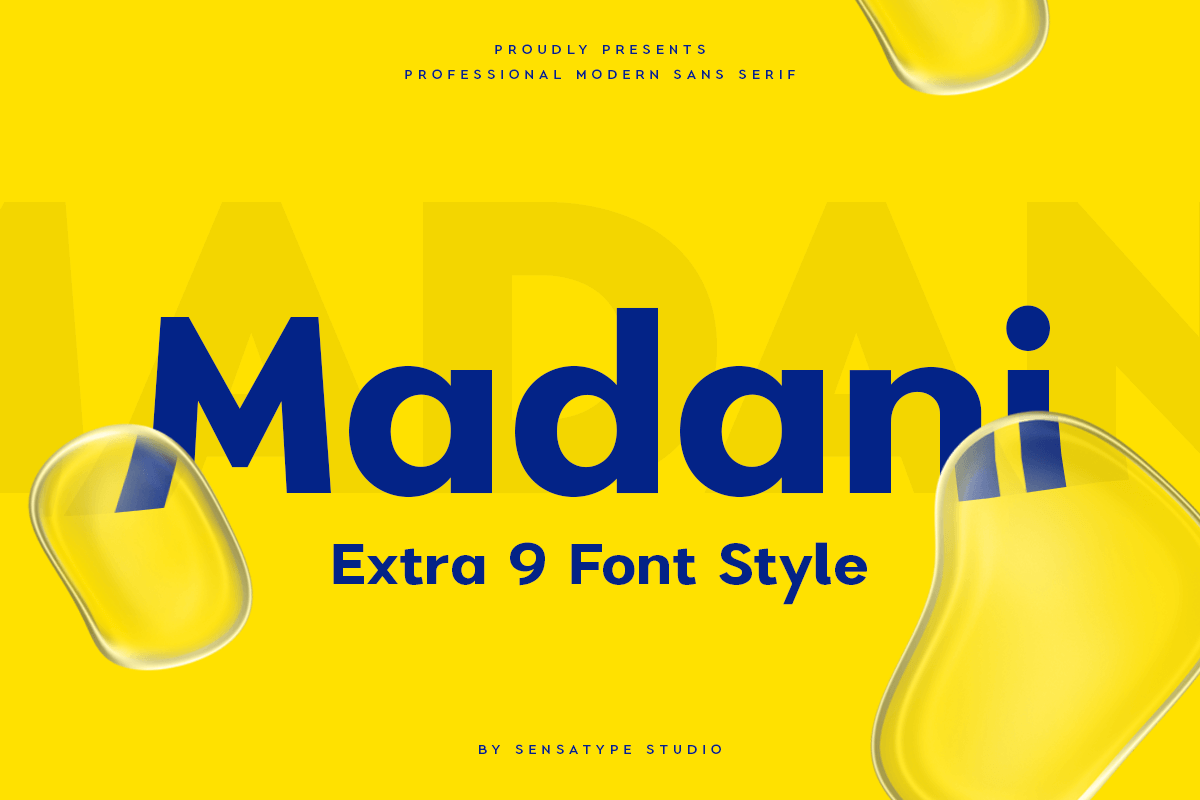
Madani
-Professional Modern Sans Serif
Madani – Professional Modern Sans Serif
Madani is a Professional Modern Sans Serif  that created special for Branding, Title and more stand out typography needs, with extra alternative styles that make your design more memorable. It’s so perfect to add your style and headline overview for business, technology, actions, and minimalist theme. And specially for this font, we crafted for minimalist style and modern feels so enjoy to create any project that will show your main idea out.